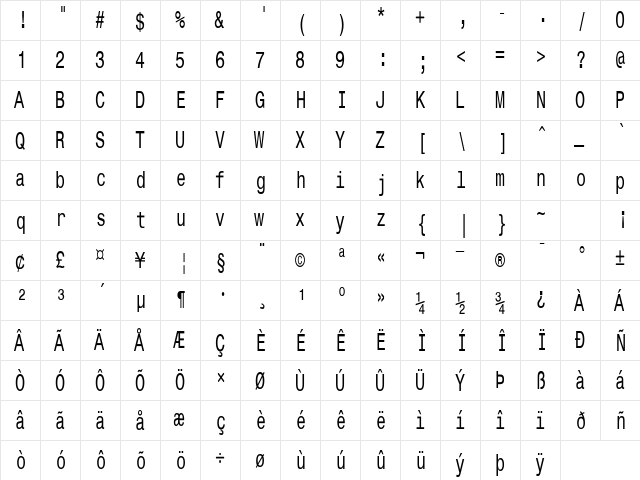
CorporateMonoCondensed Regular
Design Context for CorporateMonoCondensed Typeface
CorporateMonoCondensed brings the precise, column-aligned rhythm of monospaced typography to designs that value technical clarity and systematic order.
A natural fit for code editors, technical documentation, developer-focused branding, and terminal-inspired UI.
Pro Tip: Pair CorporateMonoCondensed with a proportional sans for UI contexts where code-style labels and regular body copy need to coexist.